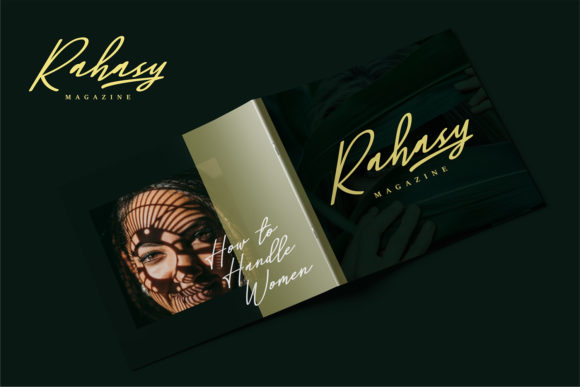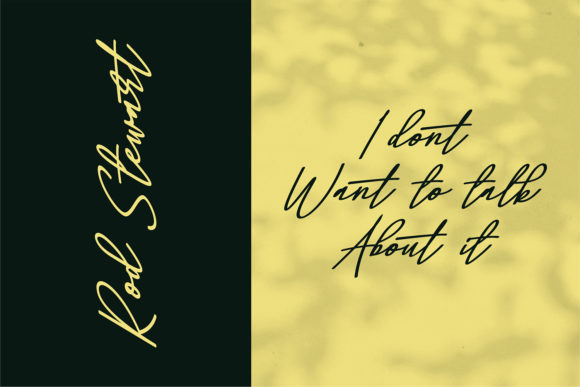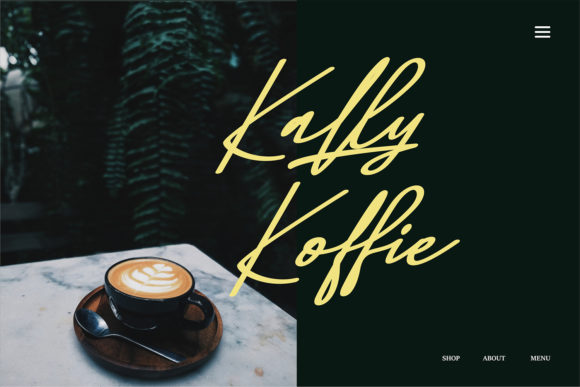
Introduction to Boven Digoel Font
Boven Digoel is a flowing handwritten font, described by an elegant touch, perfect for your favorite projects.
Key Features of Boven Digoel Font
Why Choose Boven Digoel Font?
Boven Digoel Font offers exceptional quality and versatility, making it a valuable addition to your design toolkit. Whether you’re creating for personal projects or commercial use, Boven Digoel Font delivers professional results.